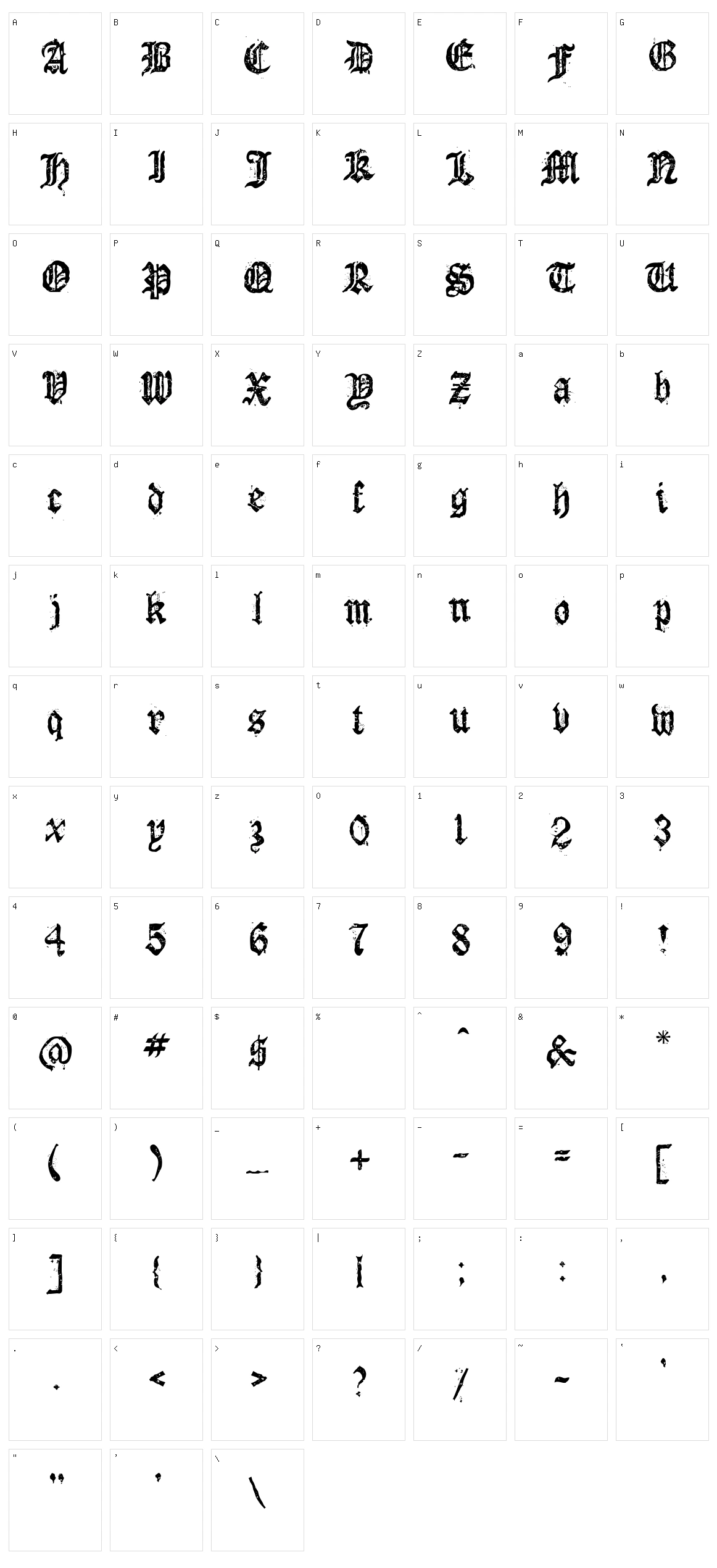
The free font Dioszeghiensis is carefully designed by Bumbayo Font Fabrik, showcasing a thoughtful balance of creativity and usability and belongs to the Gothic font family. When you download the ZIP file, it contains only 97.34 KB of font files, making it lightweight and quick to download. Please review the license details below to understand permitted usage and distribution rights. If license information is not available, we recommend using this font for personal projects only or contacting the author directly for commercial usage permissions.